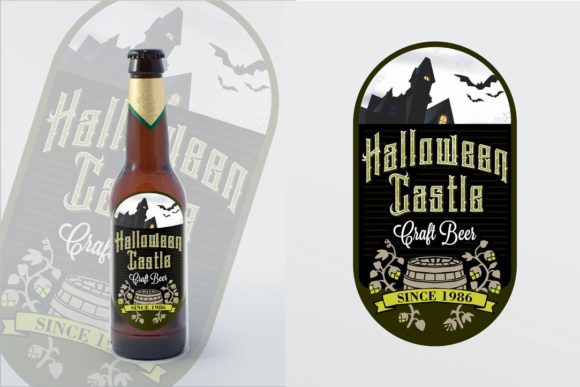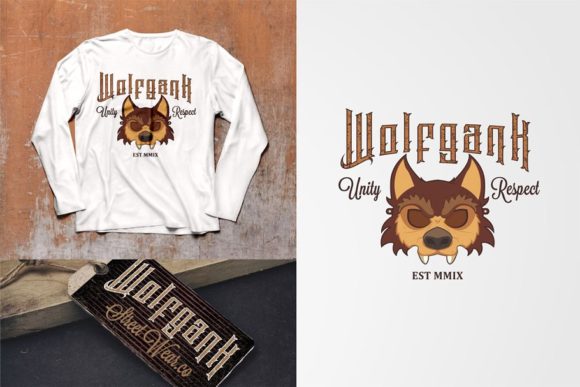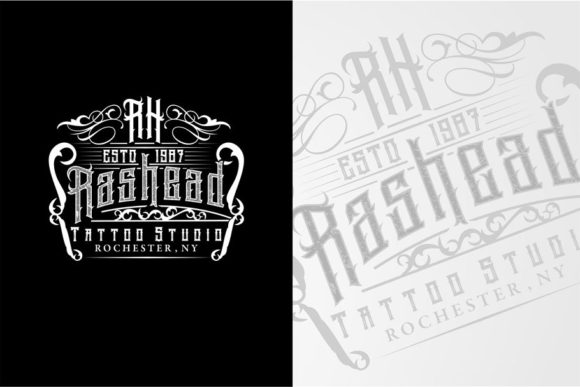
Introduction to Eastern Beast Font
Eastern Beast is a layered distressed display font with a classy feel.
Use it to turn any message into a standout .
Key Features of Eastern Beast Font
Why Choose Eastern Beast Font?
Eastern Beast Font offers exceptional quality and versatility, making it a valuable addition to your design toolkit. Whether you’re creating for personal projects or commercial use, Eastern Beast Font delivers professional results.